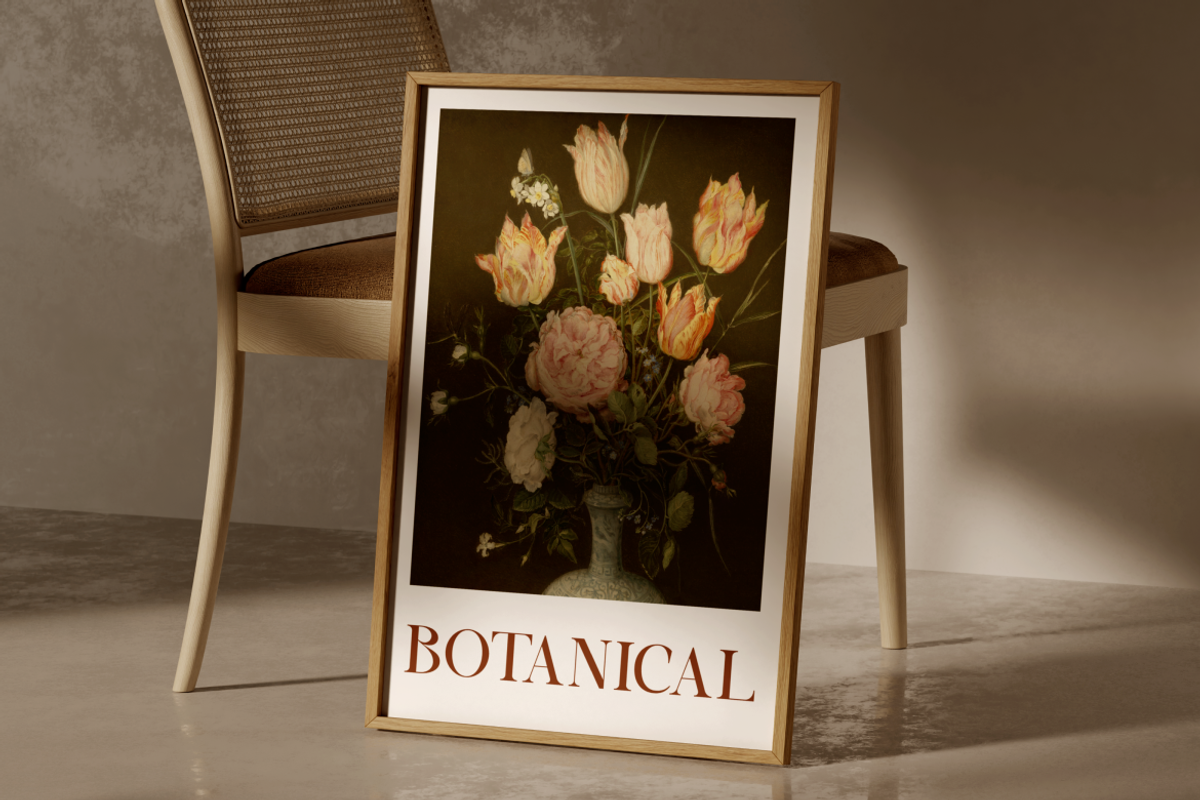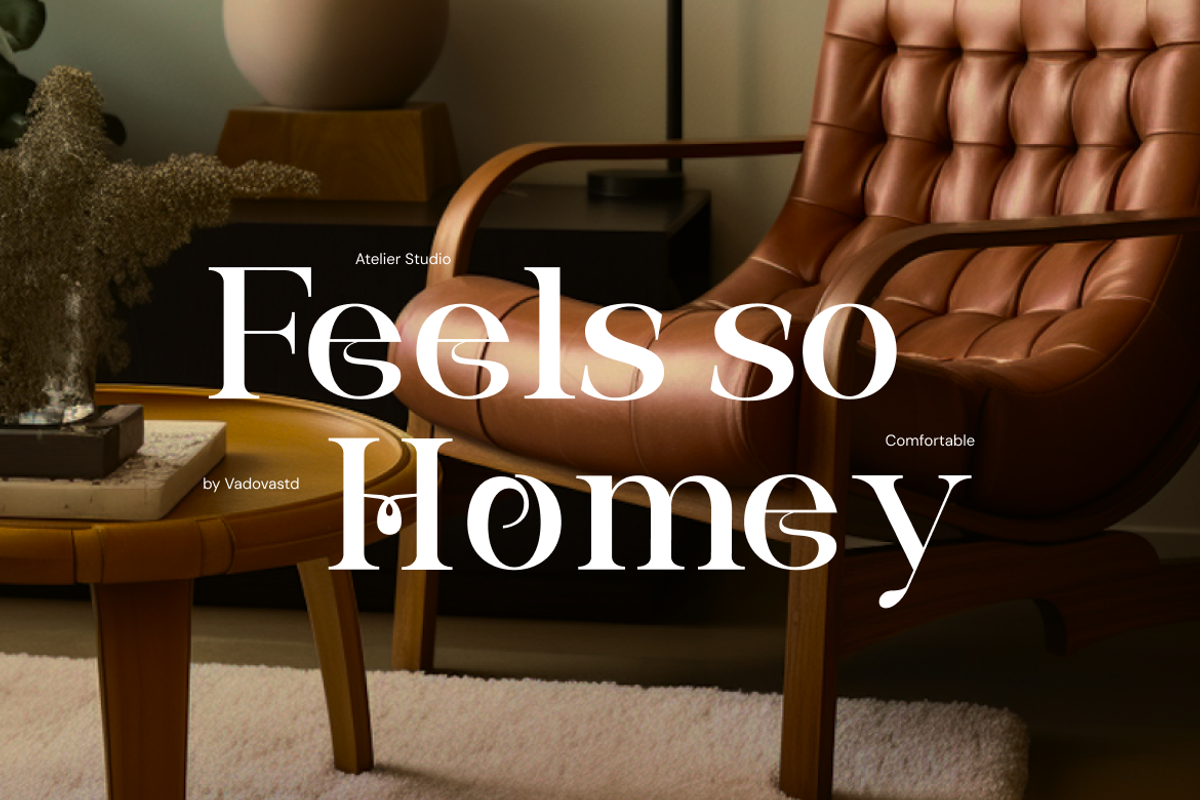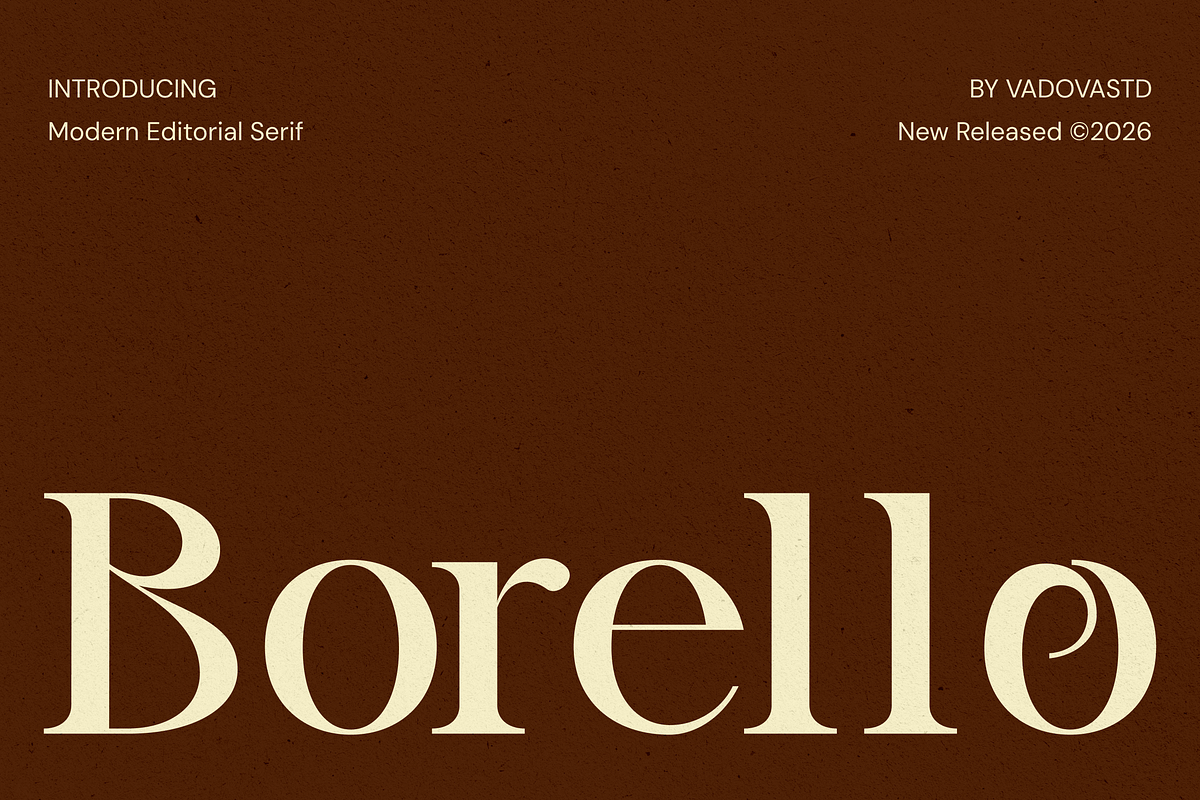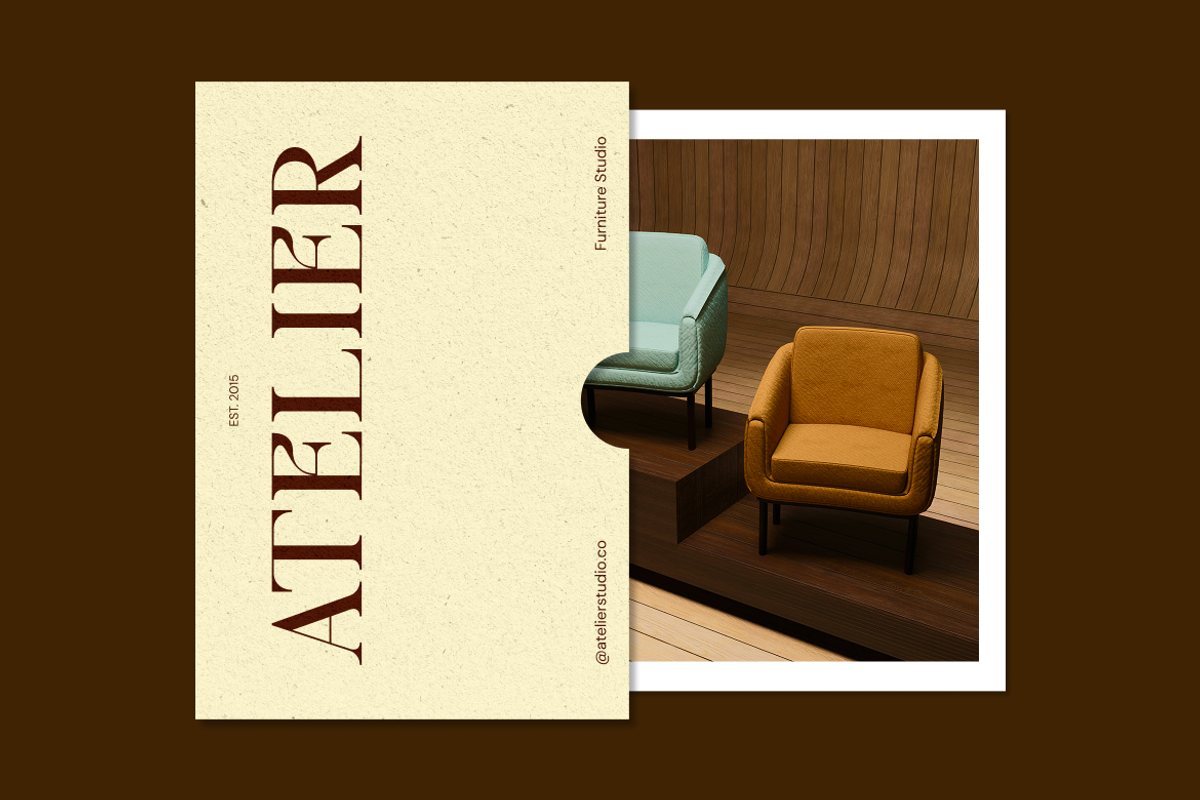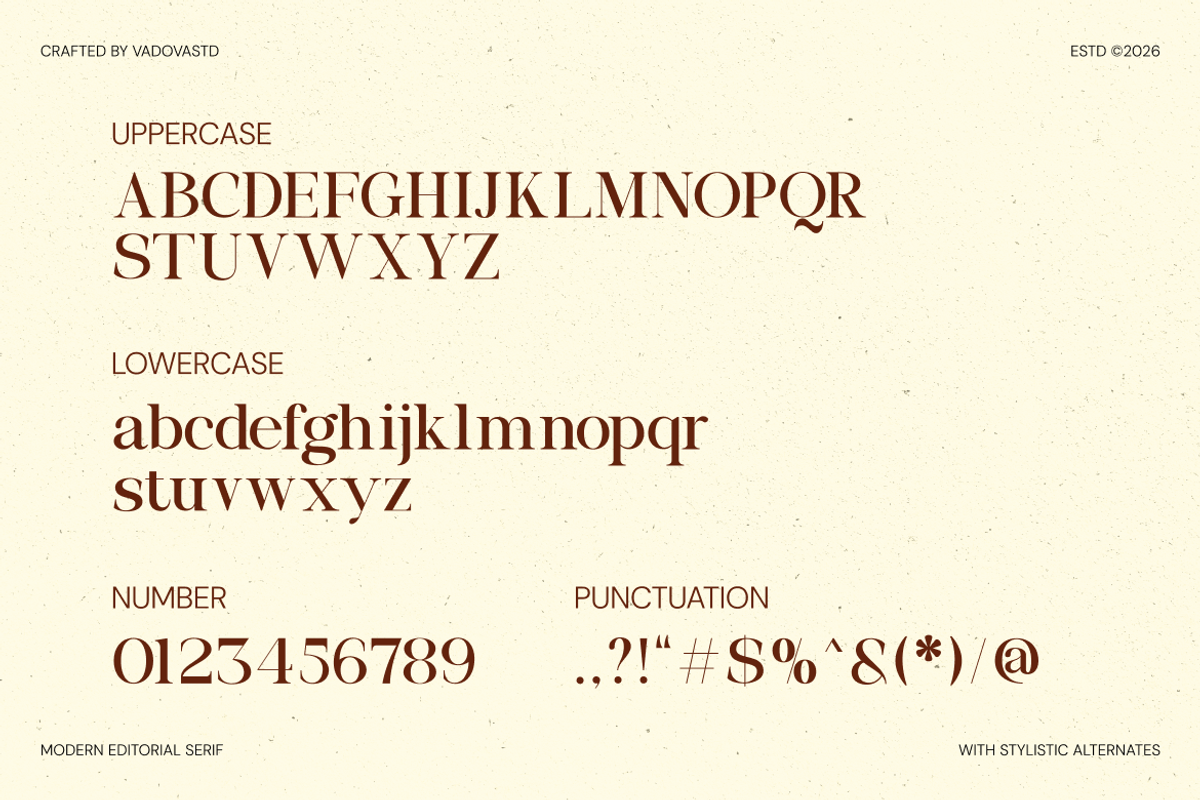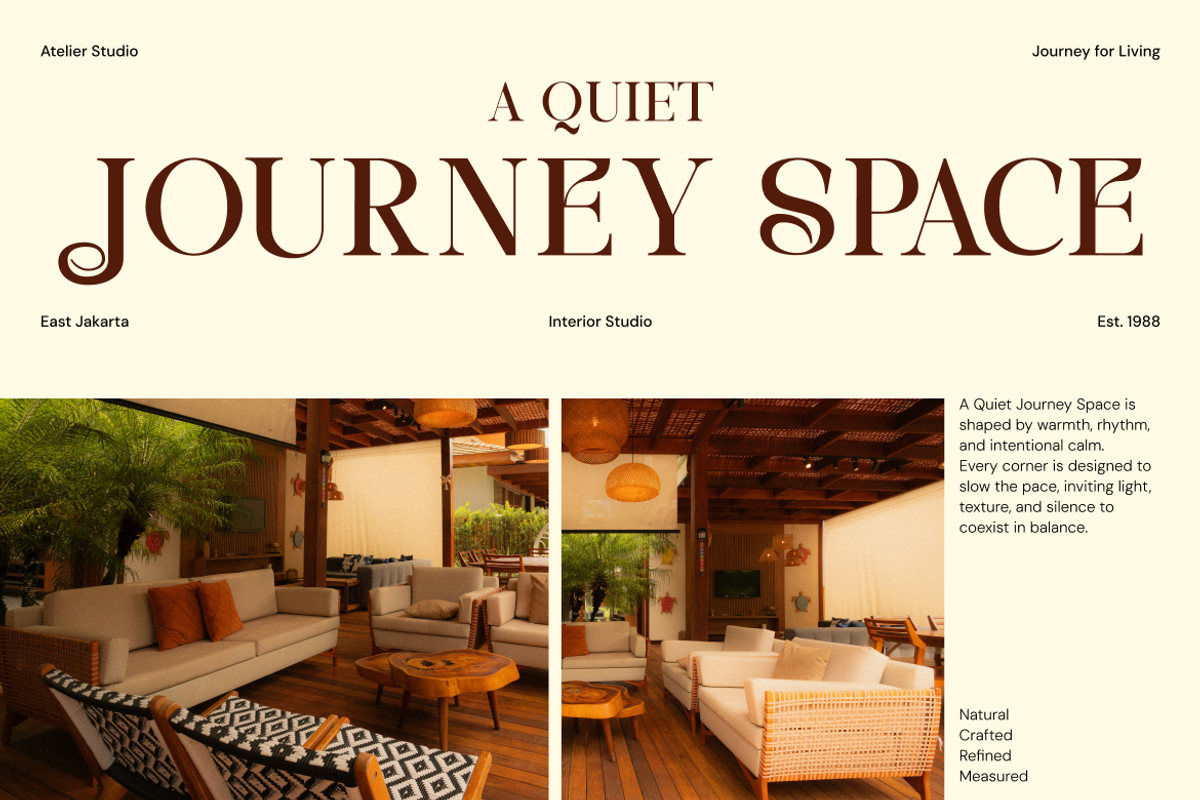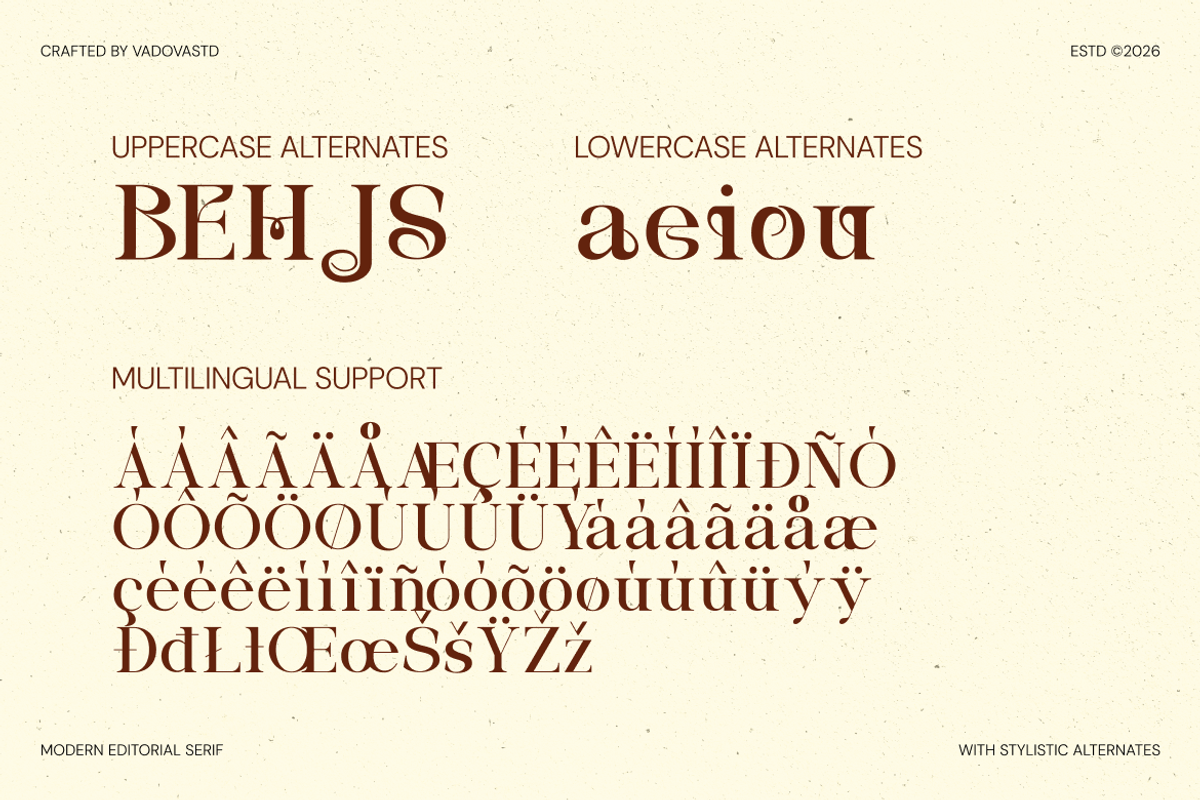
Borello Modern Editorial Serif Font
Borello is a modern editorial serif typeface designed for elegant, high-impact typography. It features refined serif details, balanced proportions, and smooth contrast that create a timeless yet contemporary feel. Inspired by classic editorial layouts and luxury publishing, Borello delivers strong visual presence while maintaining readability and sophistication.
Borello is highly relevant for designers working on editorial layouts, luxury branding, and premium visual identities. Its refined serif structure and elegant contrast make it ideal for magazine covers, fashion campaigns, branding systems, and sophisticated print or digital designs where visual impact and timeless style are essential.
- Modern editorial serif design with elegant, high-contrast proportions
- Refined serifs and smooth curves that convey a timeless, luxurious feel
- Balanced thick and thin strokes for strong visual hierarchy
- Classic vertical stress inspired by traditional publishing typography
- Carefully crafted spacing for impactful headlines and refined layouts
- Brand identity systems seeking an elegant and timeless serif character
- Editorial magazines, fashion publications, and refined book layouts
- Luxury product packaging and premium label design
- Logo design for fashion, beauty, and high-end lifestyle brands
- Social media visuals and marketing materials with editorial sophistication
Borello is a modern editorial serif designed for timeless elegance